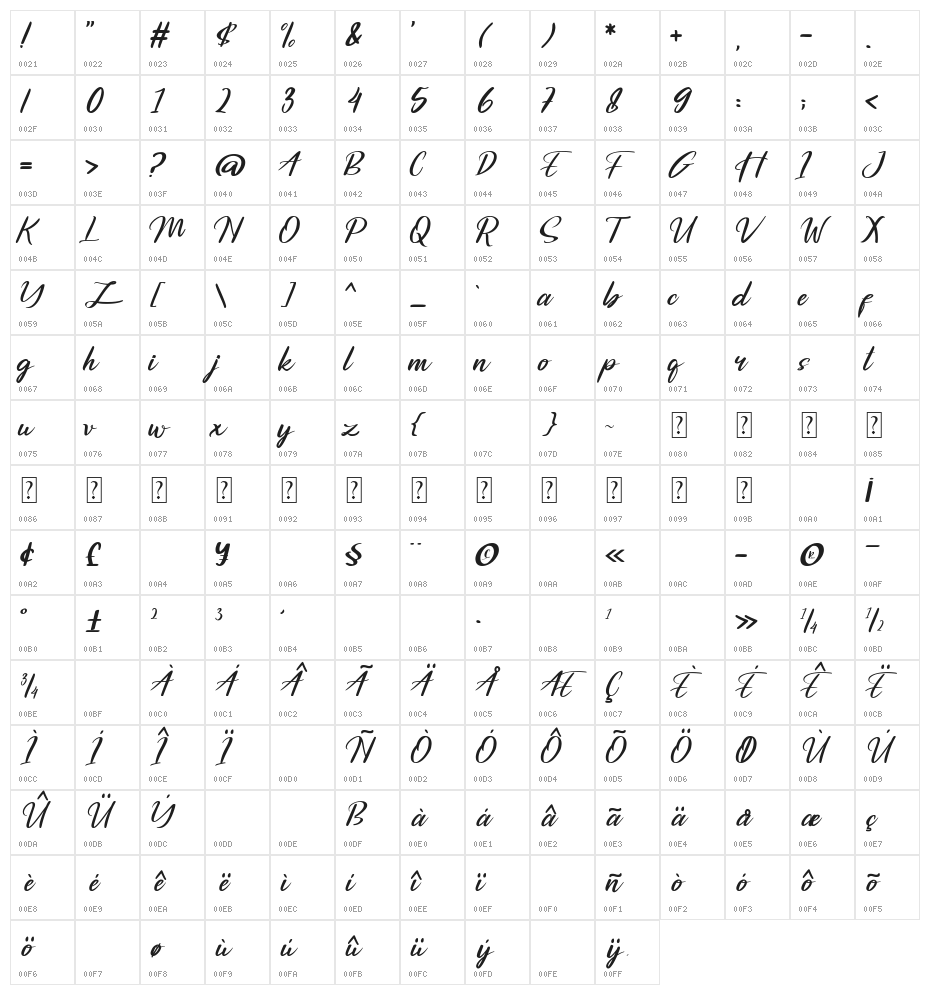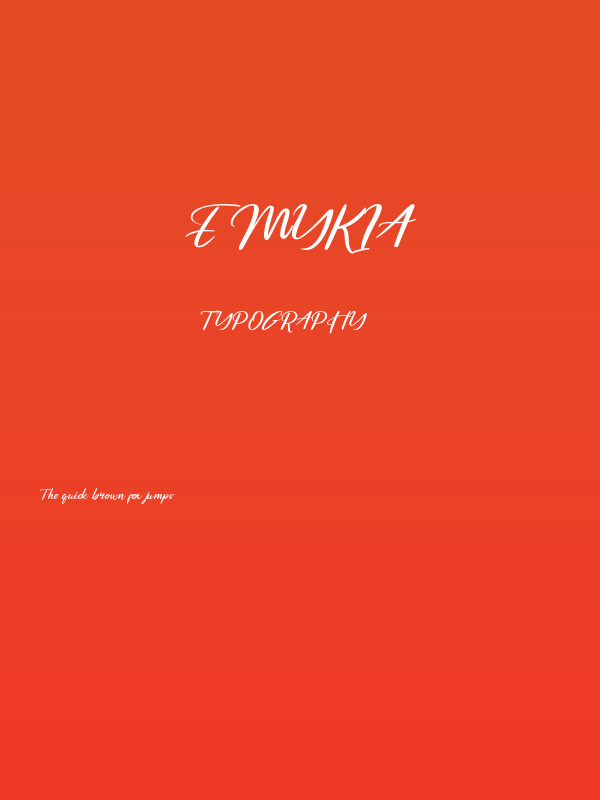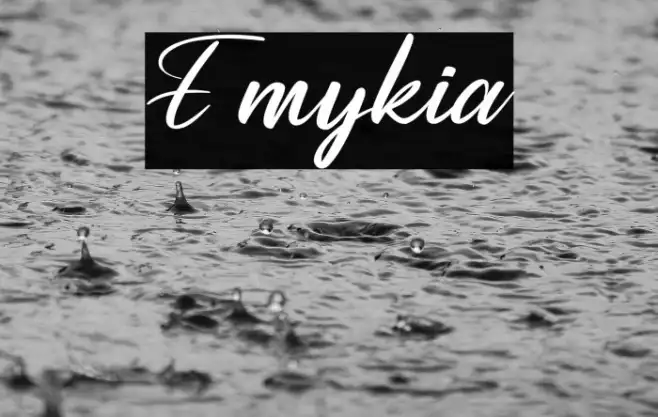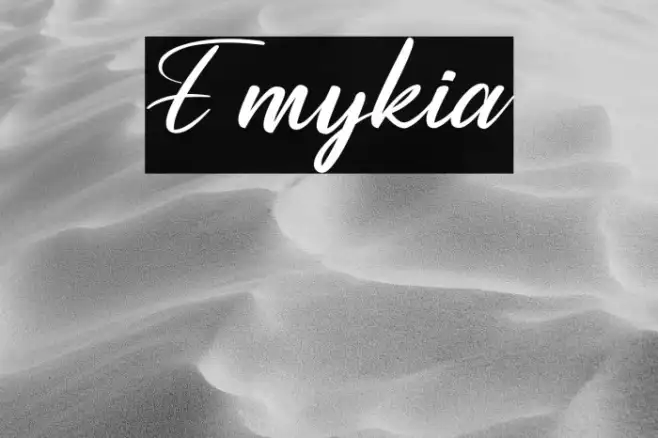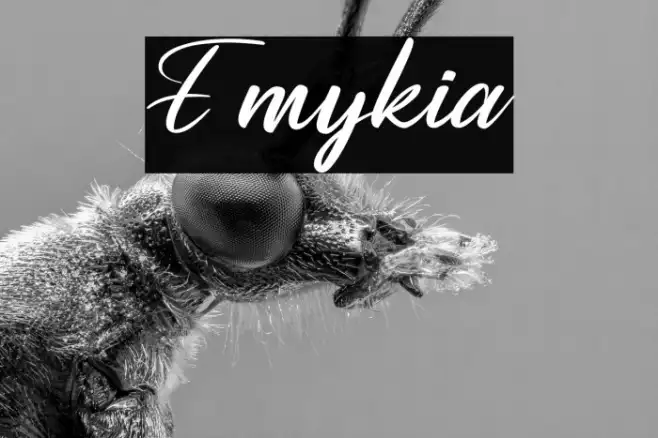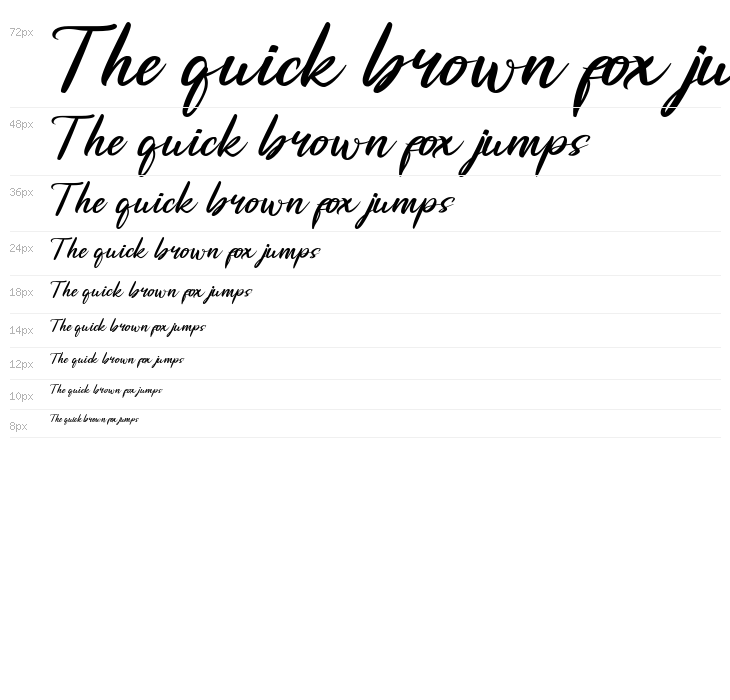
Emykia Font
Emykia Description
This font features a flowing, cursive style with elegant, sweeping strokes that give it a handwritten appearance. The uppercase letters are bold and slightly slanted, adding a sense of movement and grace. The lowercase letters maintain a consistent flow, with smooth connections between characters, enhancing readability while preserving the artistic flair. Numbers and special characters are designed to match the overall aesthetic, providing a cohesive look across all text elements. The font's design is both sophisticated and approachable, making it suitable for a variety of creative applications.
| Overall Style | Elegant, Handwritten |
| Proposed Projects | Ideal for wedding invitations, greeting cards, branding projects, and elegant packaging designs. |